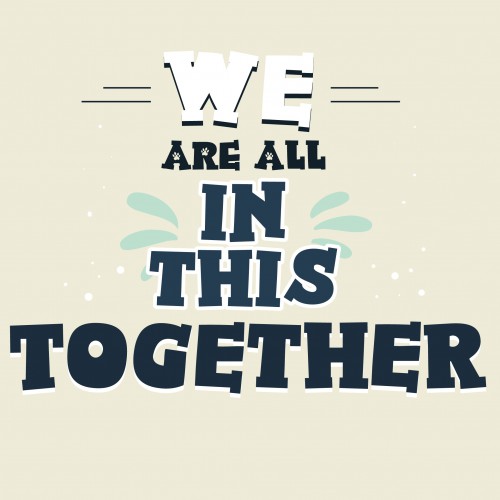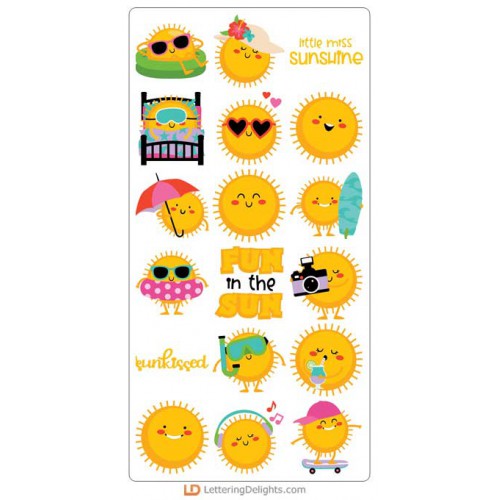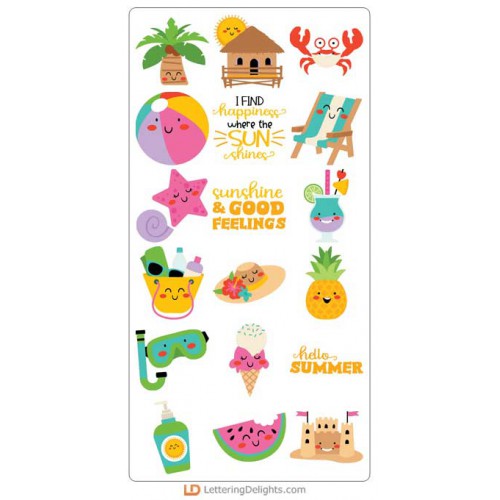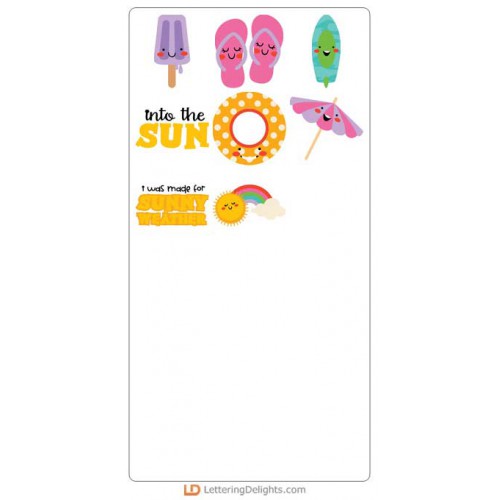
Little Miss Sunshine - Big Bundle
This fun collection features fun loving sunshines and iconic summer images perfect for summer, parties, cardmaking, classrooms, scrapbook pages, planner stickers and more!
PN Paw School - FN
This blocky serif has dog print "holes" in the uppecase...
PN Adolescent Light - FN
This simple, hand-printed font a youthful sans serif with a bit of whimsy...
PN Adolescent Bold - FN
This simple, hand-printed font a youthful sans serif with a bit of whimsy...
ZP Enticing Light - FN
This adorable, hand-written script is youthful and a bit whimsy...
ZP Enticing - FN
This adorable, hand-written script is youthful and a bit whimsy...
ZP Corruptible - FN
This hand-crafted, sans serif is just a bit janky with a homemade feel...
DB Little Miss Sunshine - DB
This fun doodlebat font features 26 fun loving sunshines perfect for summer, parties, cardmaking, cl..
DB Little Miss Holiday - DB
This fun doodlebat font features 26 summer items perfect for parties, cardmaking, classrooms, scrapb..